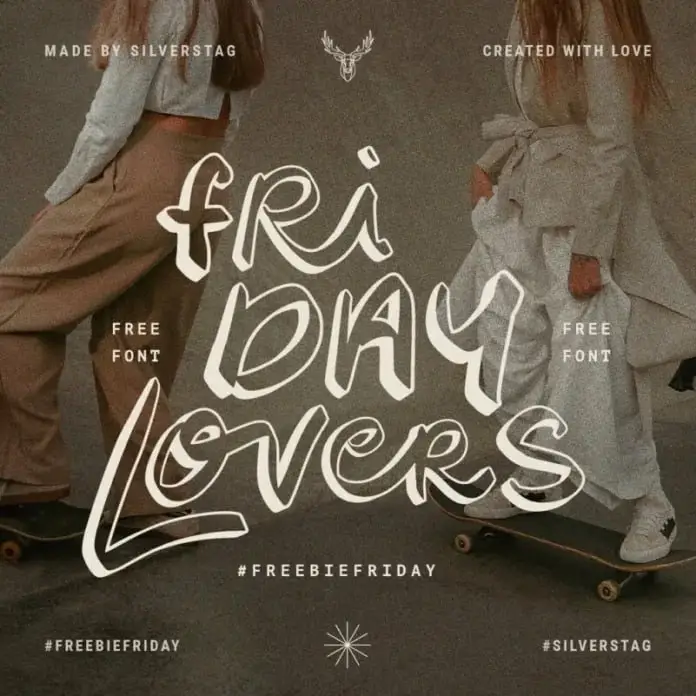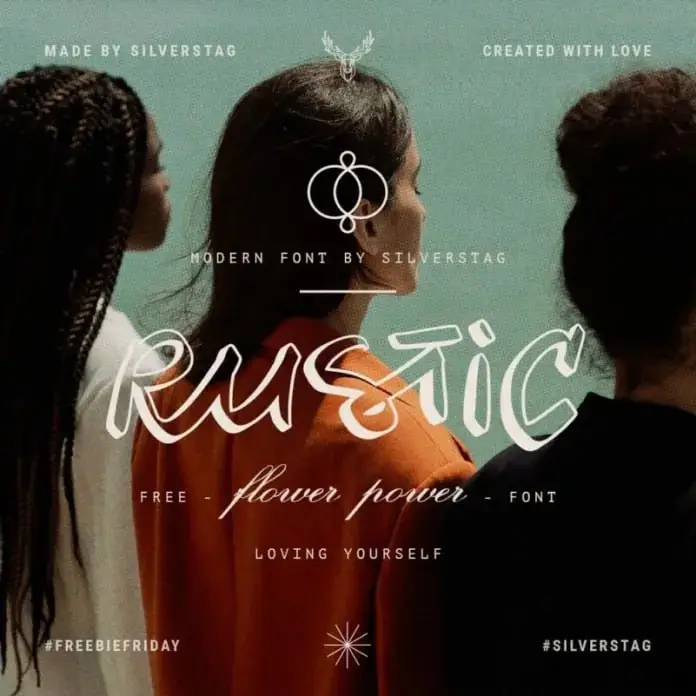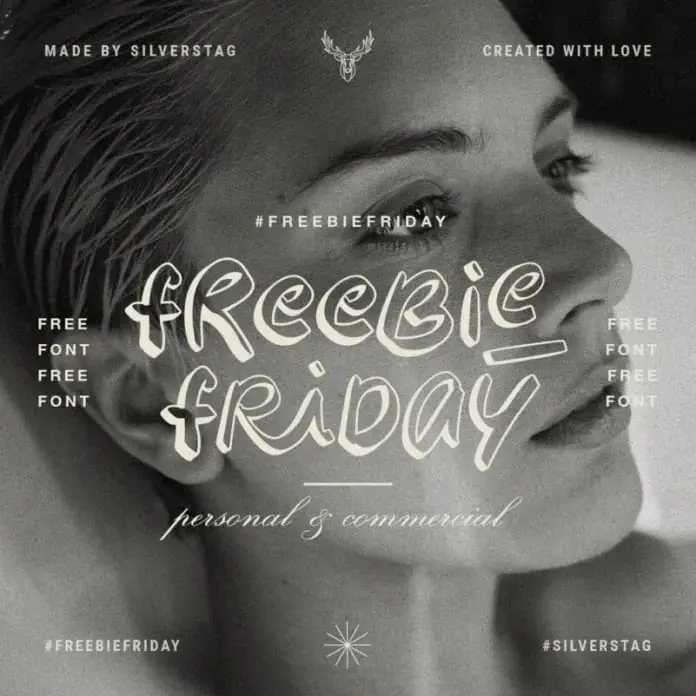
Friday Lovers Font By Silver Stag
Introducing the Friday Lovers Font by Silver Stag, a beautifully crafted typeface that brings a touch of elegance and charm to your projects. This font features a unique blend of modern and classic styles, making it perfect for a variety of applications.
• Stylish script font with a hand-lettered feel
• Includes uppercase and lowercase letters, numbers, and punctuation
• Multiple stylistic alternates for added creativity
The Friday Lovers Font is designed with attention to detail, ensuring smooth curves and a balanced appearance. It offers a range of weights to suit different design needs, from light to bold.
• Perfect for wedding invitations and greeting cards
• Great for social media graphics and web design